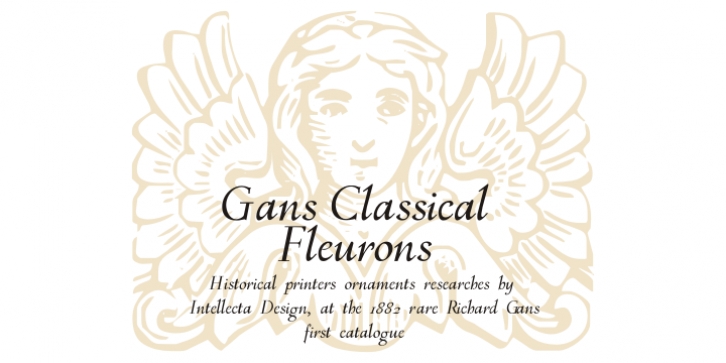
Publisher: Intellecta Design
A dingbat/decorative display font featuring many different styles of flourishes and ornaments. Great for a vintage antique feel.
See also other font families inspired by Gans' original typefaces: Gans Tipo Adorno, Gans Lath Modern, Gans Titular Adornada, Gans Ibarra, Gans Antigua Manuscrito, Gans Fulgor, Gans Radio Lumina, Gans Carmem Adornada, Gans Italiana, and Gans Titania.